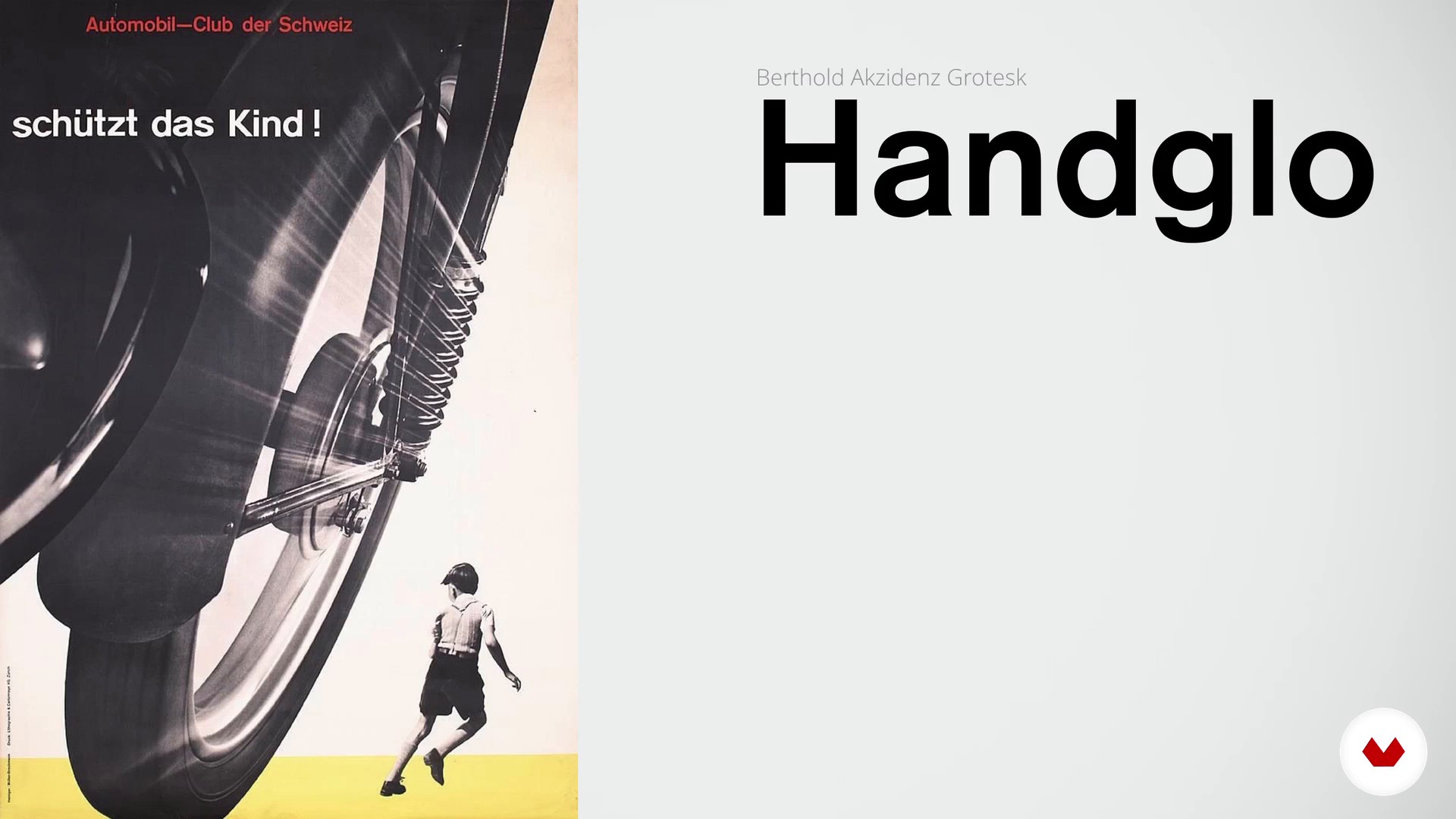
The letters of the twentieth century
About the video: The letters of the twentieth century
“Let's see how the evolution of serif letters and Egyptian letters has been.”
In this video lesson Enric Jardí addresses the topic: The letters of the twentieth century, which is part of the Domestika online course: How to Choose Fonts. Discover what each type of font tells us and how to choose the right one for your project.
“The letters of the 20th century In Lesson 2 of Module 1 I proposed a way of looking at the letters, rather than classifying them. In it we were talking mainly about serif letters and of the Egyptian letters. Now let's see a little what happens when Egyptian letters and sans serif appear, which are basically the letters of the nineteenth century, but that especially developed from the twentieth century. With the arrival of the industrial printing press the types were changing. These letters appeared that we call Scottish, but, with time and the massification of literacy, other types begin to...”